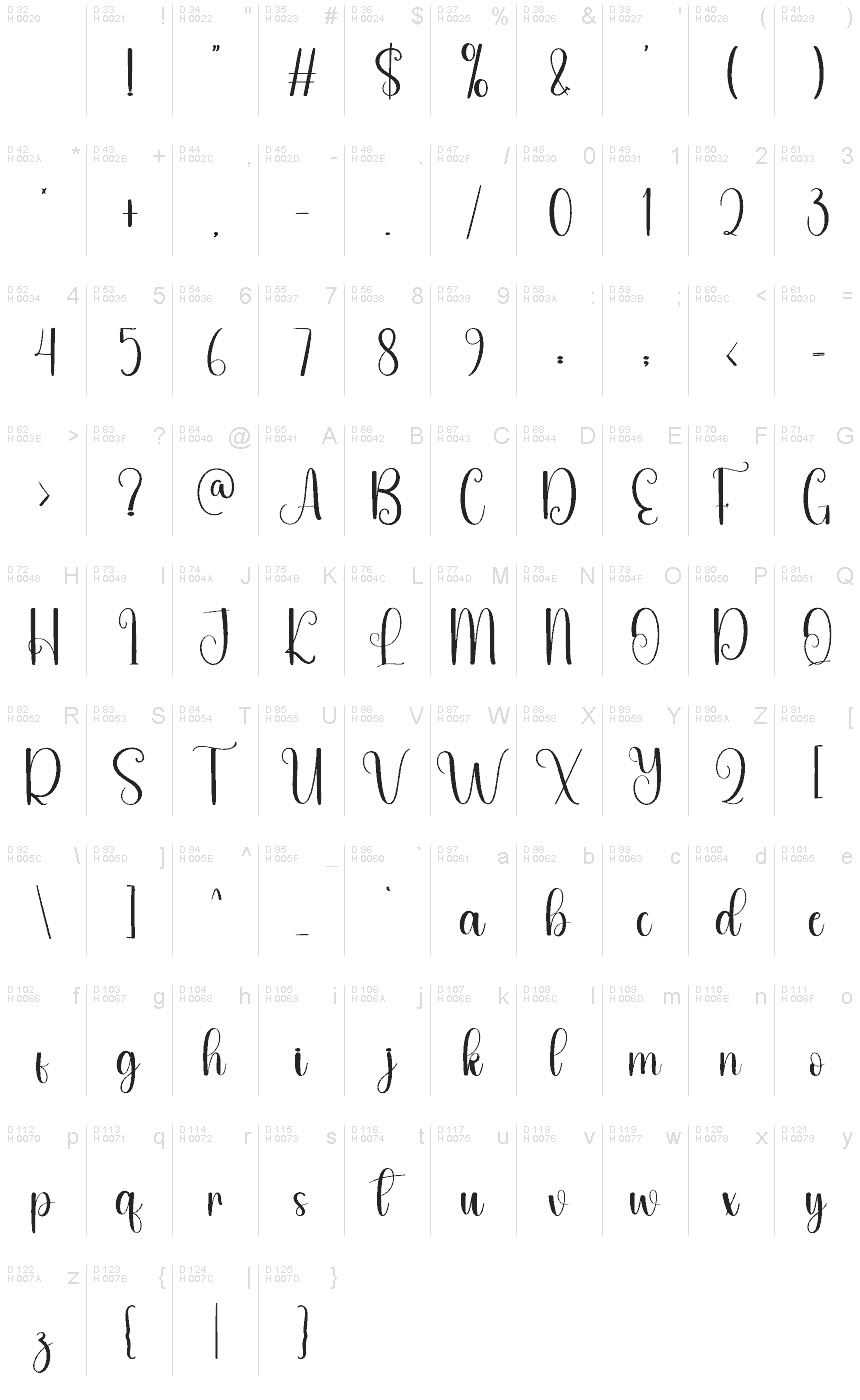
Honey Easter
Honey Easter font by Andi Moz is a free calligraphy font with a smooth flow and modern script style. It has an elegant look, expressive curves, and impressive decorative elements that complete its forms. A feminine appeal can be perceived in the typeface, making it best suited to projects related to women. And since balance is an important aspect when designing brands and other identities, Honey Easter offers this element within its glyphs.
Projects like crafts, women-related invitations, diaries, cosmetics packages, mugs and clothes prints will be great with this typeface. You can test it out on wedding invitations by typing the names of the new couple or simply their initials for monogram creation. Other ideas include female-focused magazines and books; feminine websites; blogs about fashion or life coaches; journals; posters for shops; Miss Universe events; handbags designs & many more.